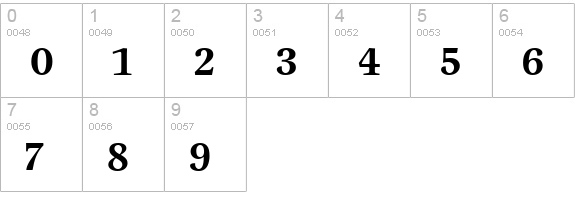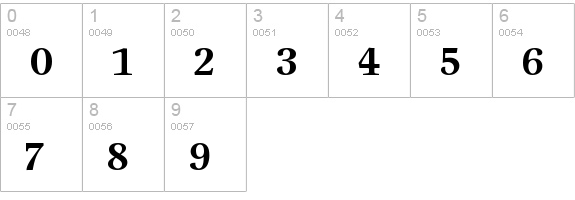
SullyJonquieresMN-Bold Font Details
SullyJonquieresMN-Bold is a strong, high-contrast variant in the SullyJonquieresMN typeface family \xE2\x80\x94 well suited to headlines, attention-grabbing titles, and strong calls-to-action.
SullyJonquieresMN-Bold is a striking and versatile font that combines modernity with elegance. Its bold and confident strokes make it ideal for headlines, titles, and other attention-grabbing text. This font exudes a sense of sophistication and style, making it a perfect choice for projects that demand a touch of flair. The best part is that SullyJonquieresMN-Bold is completely free to download at FontsMarket.com. Whether you're a designer looking to add a unique touch to your creations or a content creator seeking a font that stands out, SullyJonquieresMN-Bold is sure to make a statement. Don't miss out on this fantastic opportunity to enhance your projects with this exceptional font. Download it today and let your creativity soar with SullyJonquieresMN-Bold!